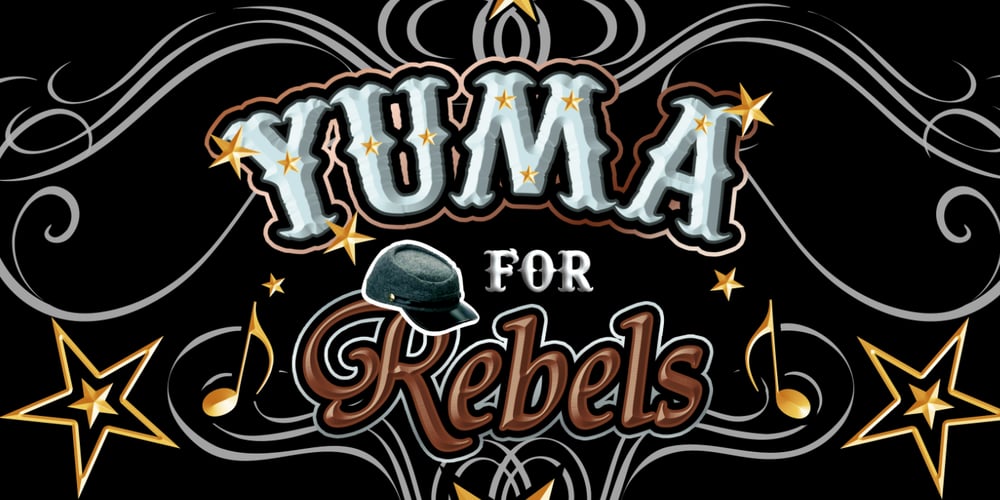
Yuma Font Family was designed by published by Otto Maurer. Yuma contains 9 styles and family package options. This Font is made for a Capture Function on an Web template. For Security.